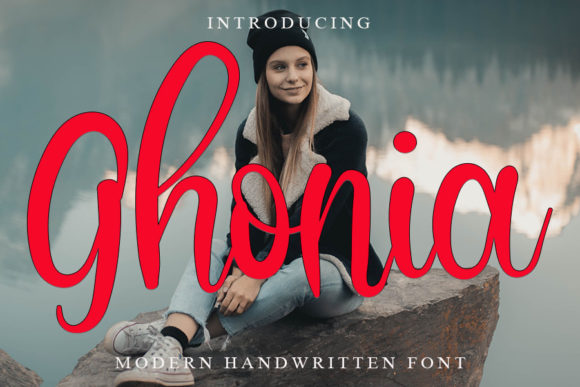
Ghonia Font: Elevate Your Designs with a Touch of Elegance
Are you on the hunt for a font that exudes class, sophistication, and a dash of modern flair? Look no further than Ghonia Font, a casual handwritten font designed to capture your heart and take your projects to new heights. In this article, we’ll dive into the world of Ghonia, exploring its unique features, design inspiration, and the endless possibilities it offers for designers and crafters alike.
The Story Behind Ghonia Font
Ghonia Font is a carefully crafted typeface that seamlessly blends traditional calligraphic influences with a contemporary twist. Its creator aimed to design a font that not only feels fresh and modern but also retains an air of elegance and refinement. The result is a beautiful, casual handwritten font that is sure to become a staple in your design arsenal.
What Makes Ghonia Font So Special?
So, what sets Ghonia apart from other fonts in its category? Here are a few key features that make it a standout:
- Classy Calligraphic Influences: Ghonia’s roots in traditional calligraphy are evident in its fluid strokes and elegant letterforms. Each character is carefully designed to evoke a sense of sophistication and refinement.
- Contemporary and Fresh: Despite its classic influences, Ghonia Font feels remarkably modern and fresh. Its unique blend of traditional and contemporary elements makes it perfect for designers looking to add a touch of personality to their work.
- Casual and Handwritten: Ghonia’s casual, handwritten aesthetic makes it ideal for a wide range of design applications, from branding and packaging to blog posts and social media graphics.
Design Inspiration and Applications
Ghonia Font is an incredibly versatile typeface that can be used in a variety of design contexts. Here are a few ideas to get you started:
- Branding and Identity: Use Ghonia to create stunning logos, business cards, and brand guidelines that showcase your company’s personality and style.
- Digital and Print Materials: Ghonia Font is perfect for creating engaging blog posts, social media graphics, and print materials like brochures, flyers, and posters.
- Packaging and Product Design: Add a touch of elegance to your product packaging with Ghonia Font, making your products stand out on store shelves and online.
- Web Design: Use Ghonia to create beautiful website headers, titles, and body text that will leave a lasting impression on your visitors.
Tips for Working with Ghonia Font
To get the most out of Ghonia Font, here are a few tips to keep in mind:
- Experiment with Font Sizes: Ghonia Font looks great at a variety of font sizes, so don’t be afraid to experiment and find the perfect size for your design.
- Play with Color: Ghonia Font is a versatile typeface that works well with a range of colors. Try pairing it with bold, bright colors or soft pastels to create a unique look.
- Mix and Match: Combine Ghonia Font with other fonts to create a stunning typography combination that adds depth and interest to your design.
In conclusion, Ghonia Font is a truly exceptional typeface that offers a unique blend of classy calligraphic influences, contemporary flair, and casual handwritten charm. Whether you’re a designer, crafter, or DIY enthusiast, Ghonia Font is sure to become a favorite in your design arsenal. So why wait? Fall in love with Ghonia Font and let it bring your projects to the highest levels!